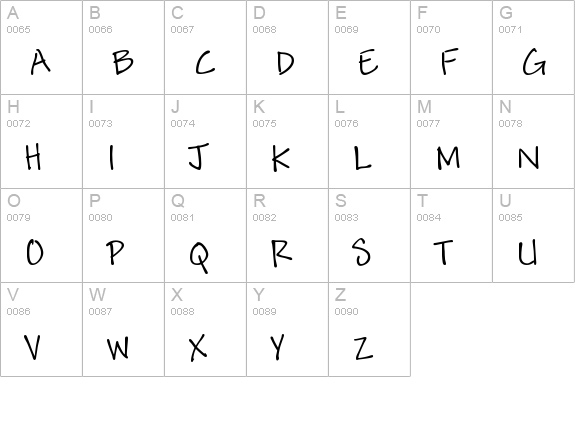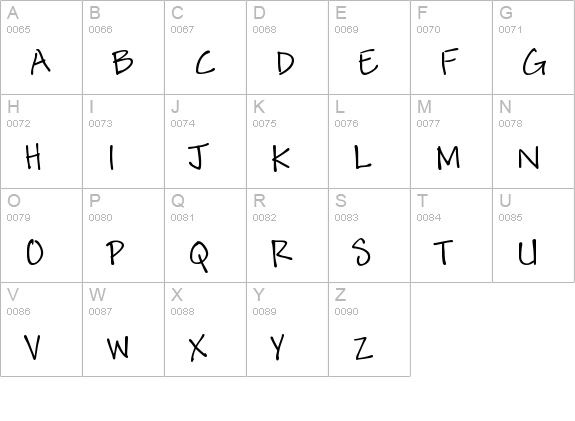
Andy Pro is a free for personal use font in the Script > Handwritten category, designed by Market2024. It has been downloaded 57 times and is available for Windows, Mac and Linux.
Andy Pro is a modern and stylish font that exudes sophistication and elegance. With its clean lines and sleek design, this font is perfect for adding a touch of class to any project. Whether you are creating a logo, designing a website, or working on a special invitation, Andy Pro is sure to make your text stand out.